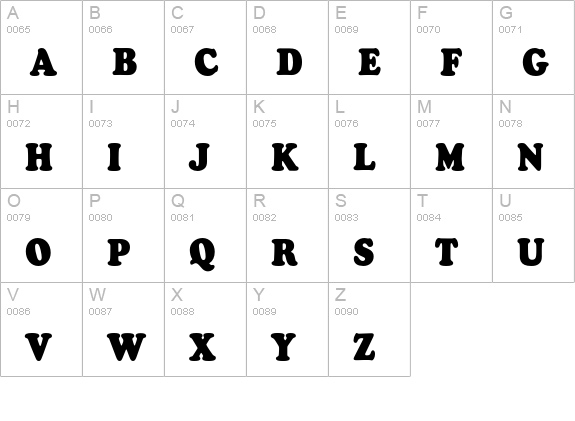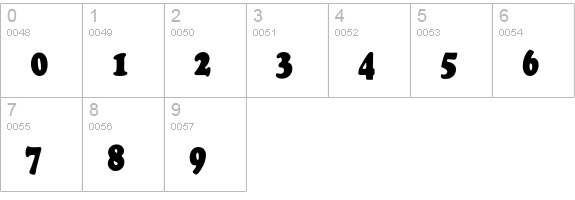
CooperBlackEF-BoldCondensed Font Details
CooperBlackEF-BoldCondensed is a bold and impactful font that exudes confidence and strength. With its condensed style, it adds a touch of modernity and sleekness to any design project. This versatile typeface is perfect for headlines, titles, and other display purposes where you want to make a bold statement. The best part? CooperBlackEF-BoldCondensed is available for free download at FontsMarket.com, making it easily accessible for designers and creatives looking to elevate their projects with a powerful and eye-catching font. Whether you're working on branding, advertising, or any other creative endeavor, this font is sure to make a lasting impression. Download CooperBlackEF-BoldCondensed today and take your designs to the next level!